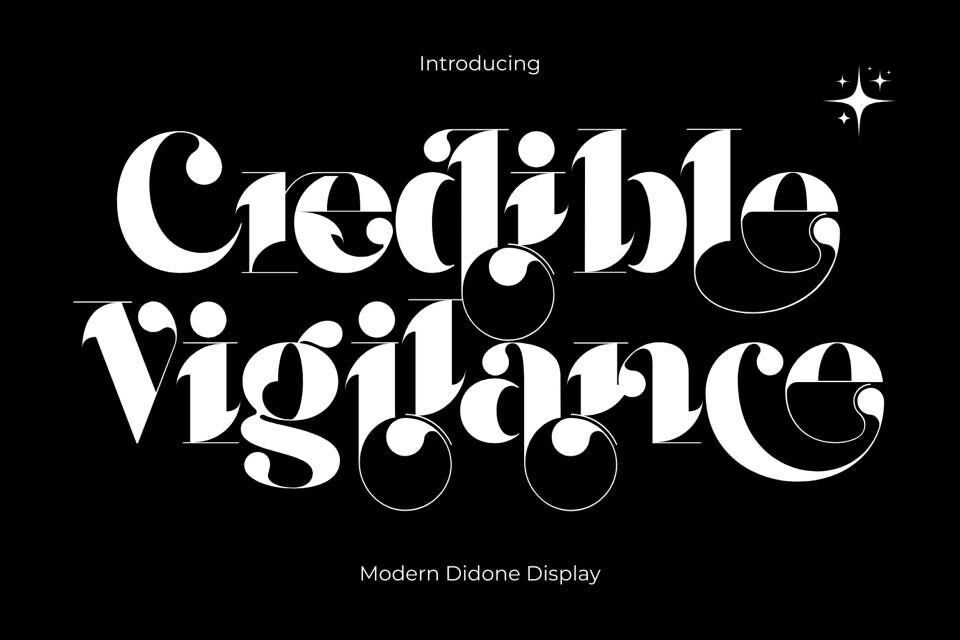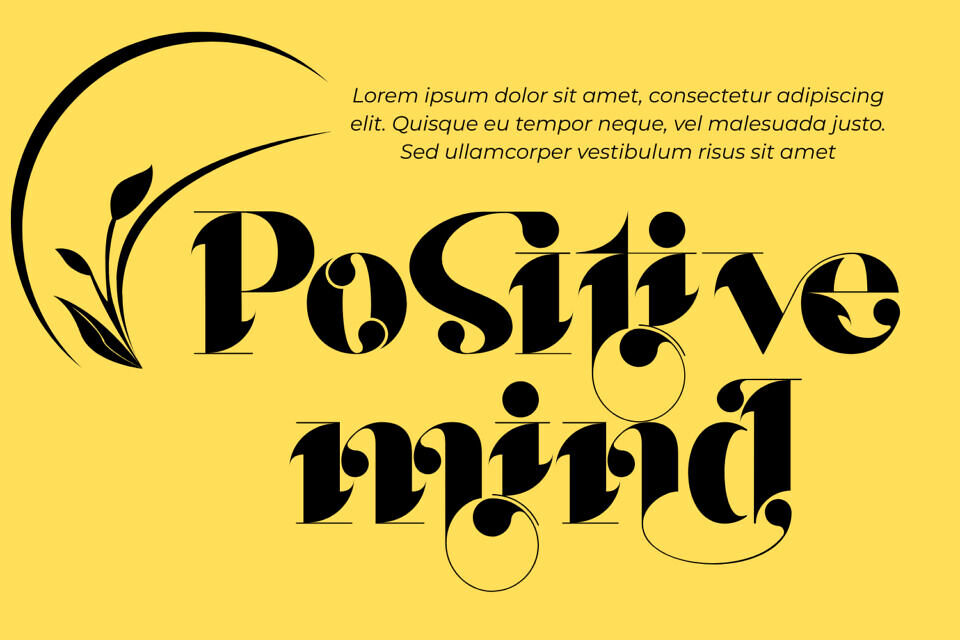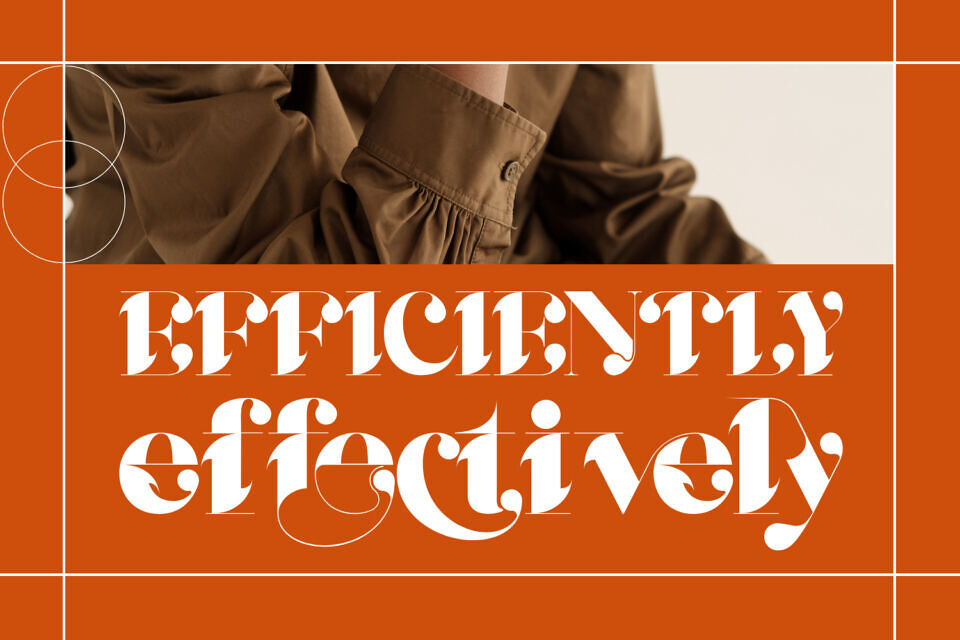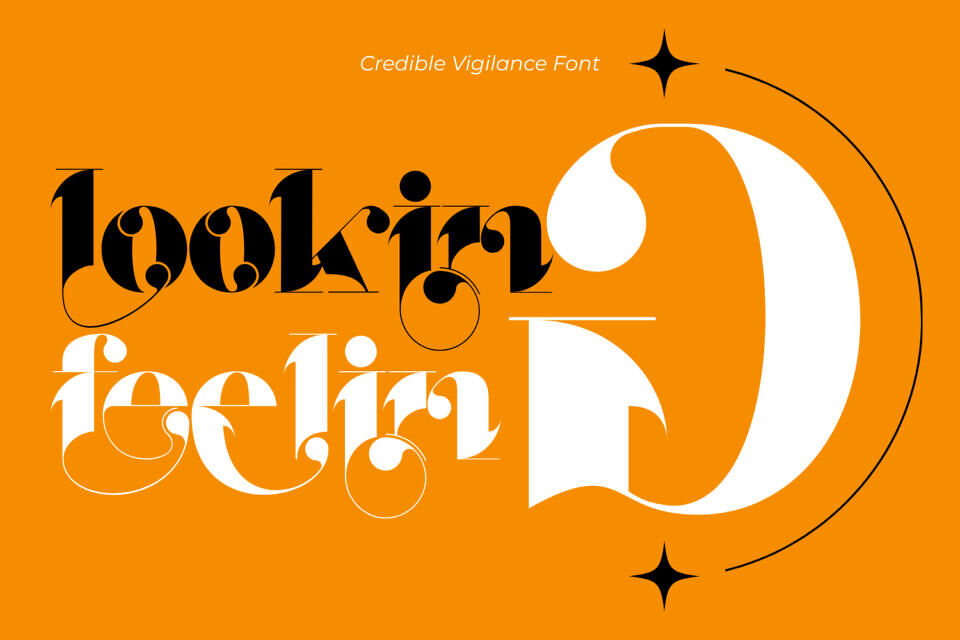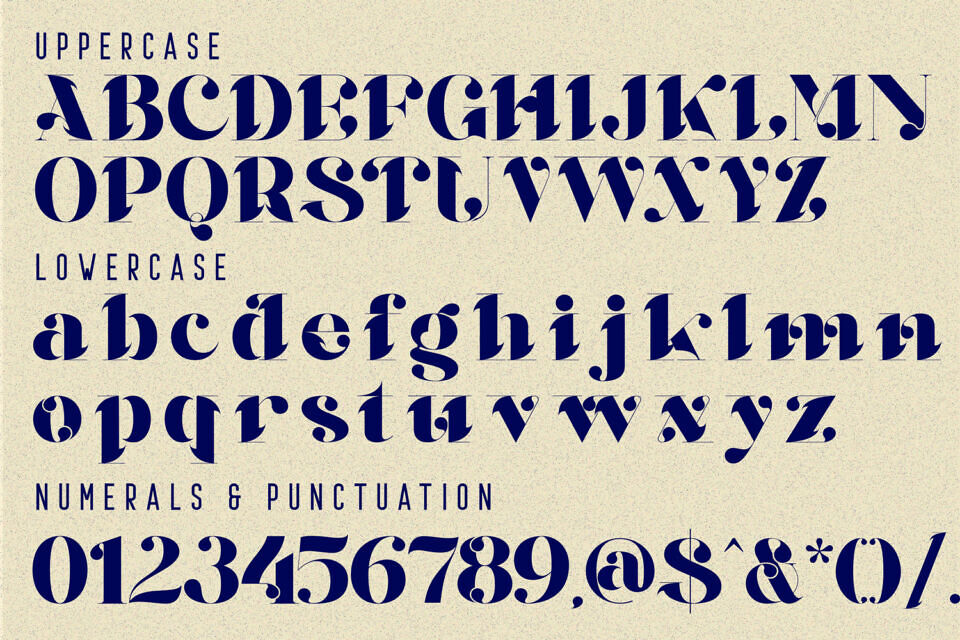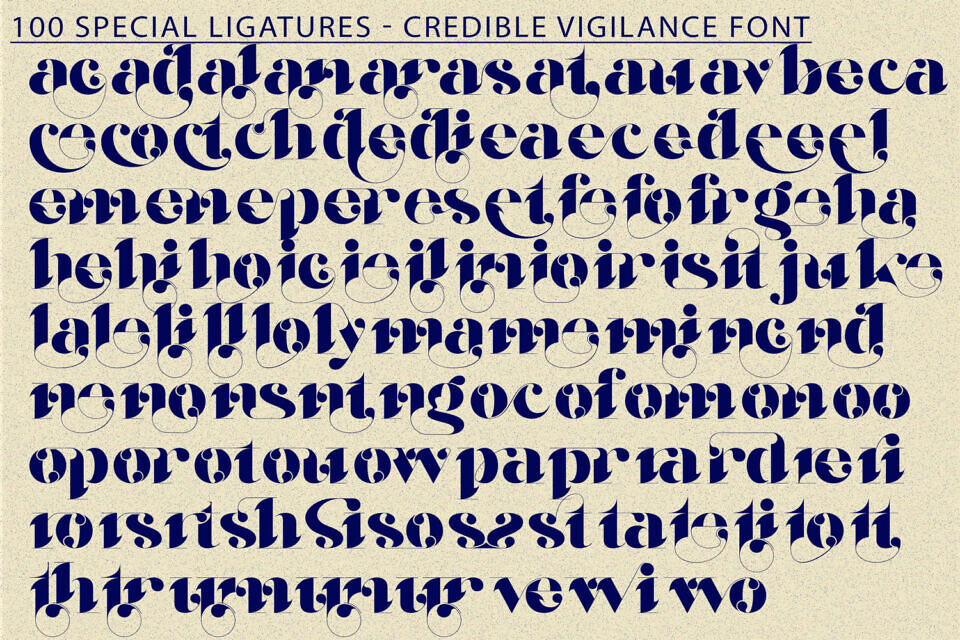
Credible Vigilance is an Opulent High-Fashion Display Font, a lavish and dramatic typeface crafted for the world of luxury and high-end aesthetics. This font is a modern interpretation of the classic Didone style, characterized by its extreme high-contrast strokes—where voluptuous thick stems meet delicate, whisper-thin hairlines.
Its defining feature is the stunning array of exaggerated swashes and opulent loops. Characters boast beautifully curved tails and mesmerizing flourishes that transform simple words into striking visual statements. This inherent drama makes it an unparalleled choice for exclusive branding. Credible Vigilance is the definitive font for fashion editorials, cosmetic packaging, upscale branding, wedding invitations, and any project where elegance, sophistication, and a touch of vintage romance are paramount.